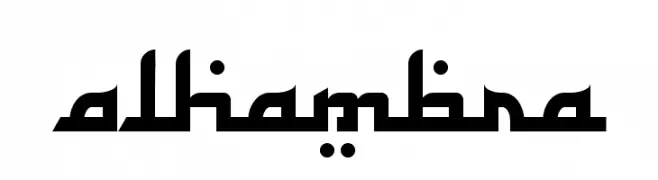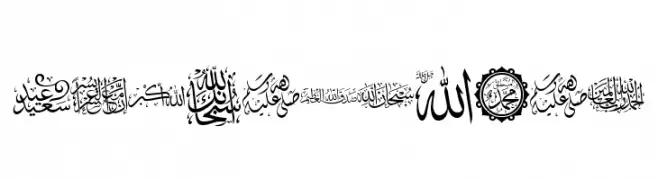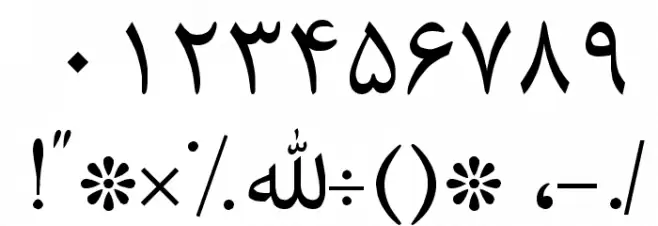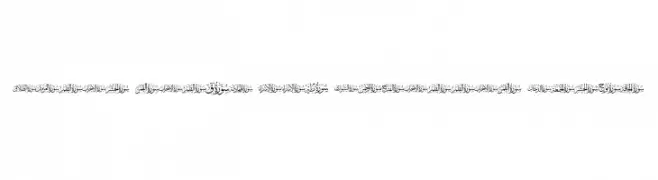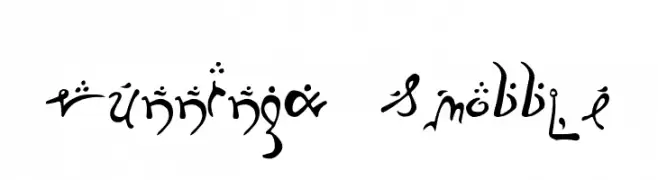
An elegant and intricate traditional Arabic script ideal for religious texts.
A whimsical and artistic font with decorative elements and varying stroke thickness.
A bold, geometric font with calligraphic influences and a modern aesthetic.
A modern, rounded font with cultural influences and smooth, flowing letterforms.
A classic serif font with elegant strokes and multilingual support.
Bold, geometric numerals and punctuation with a modern flair.
Calligraphic numerals with elegant, flowing strokes.